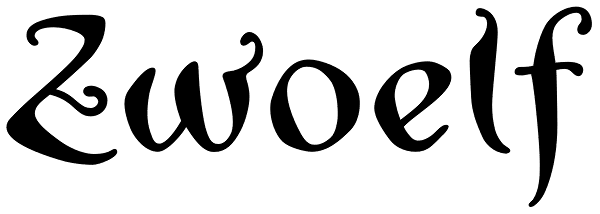
ALS Zwoelf
The design of Zwoelf stems from a letter created by Oleg Pashchenko for the poetry book called “They Talk.” Modified in several ways, the lettering gained readability and a more neutral look. This typeface combines Modern and Gothic styles, ugliness...